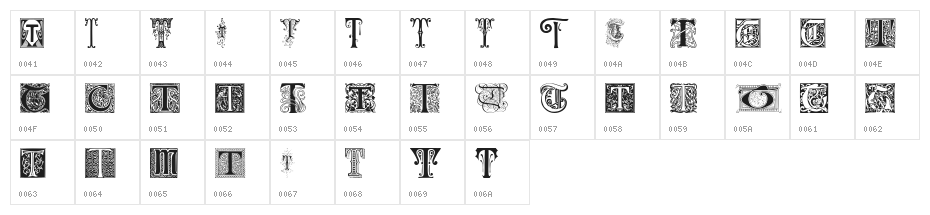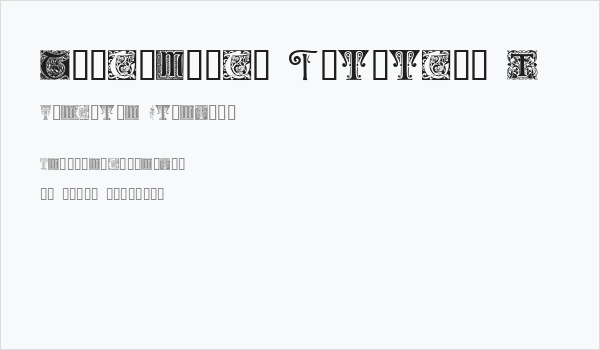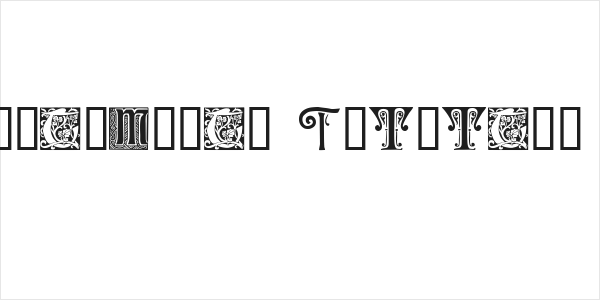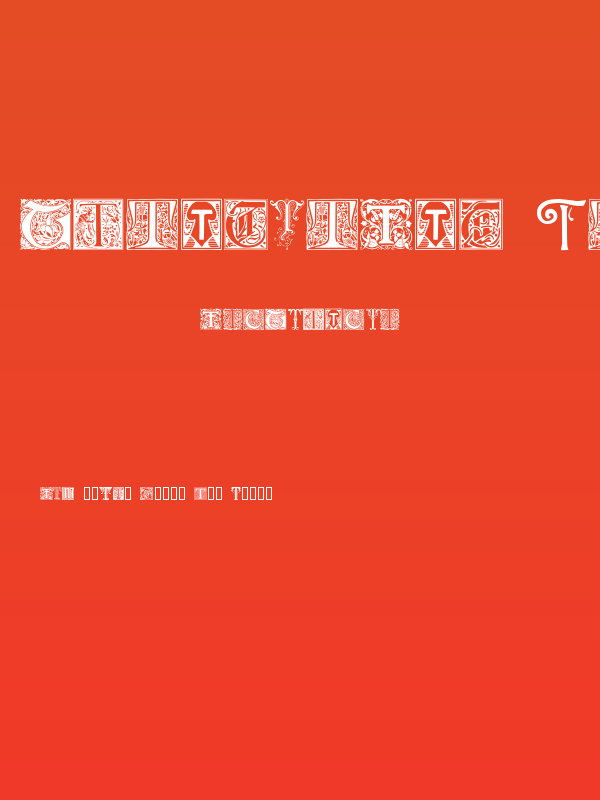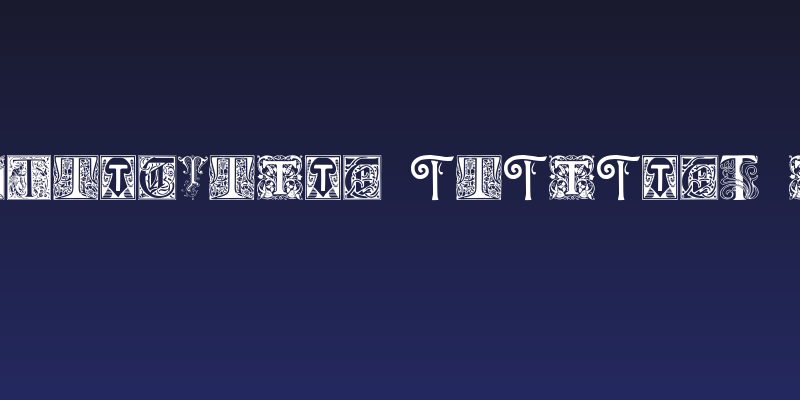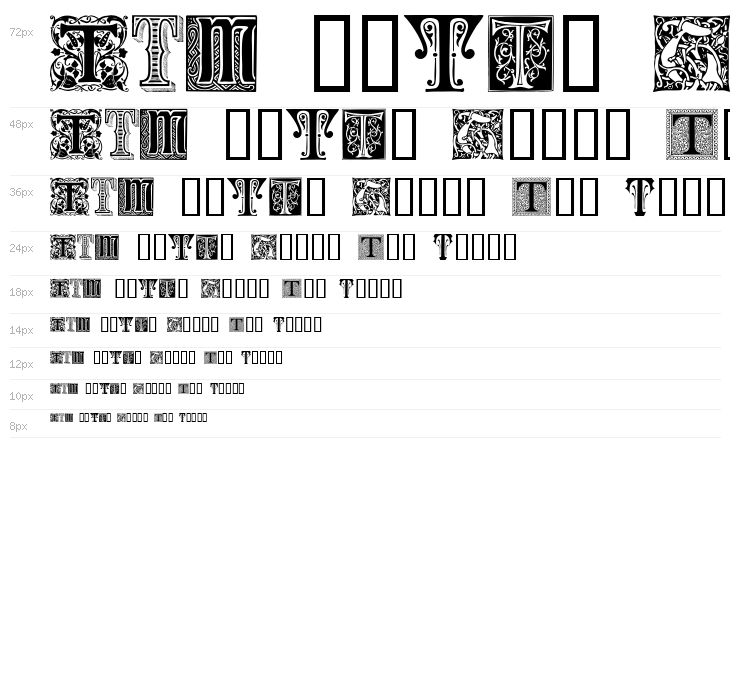
Ornamental Initials T Font
Ornamental Initials T Description
This font is a highly decorative and ornate style, featuring intricate designs within each letter. The uppercase letters are embellished with elaborate patterns, swirls, and flourishes, making each character a piece of art. The font is reminiscent of medieval manuscripts or vintage book covers, where each letter is uniquely crafted with detailed motifs. The overall appearance is bold and eye-catching, suitable for creating a dramatic and artistic impression.
| Proposed Projects | Ideal for vintage book covers, wedding invitations, decorative posters, and branding that requires a touch of elegance and artistry. |